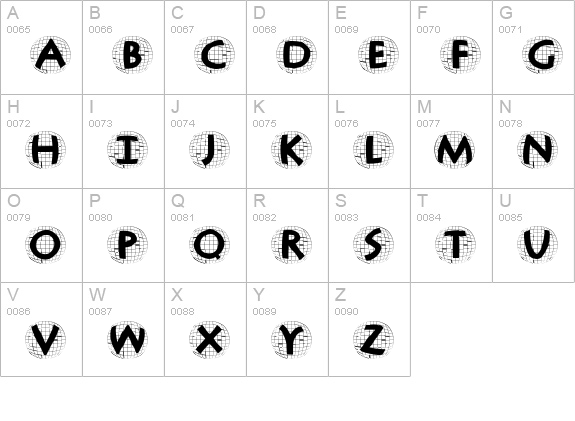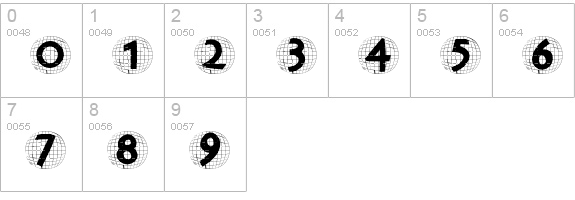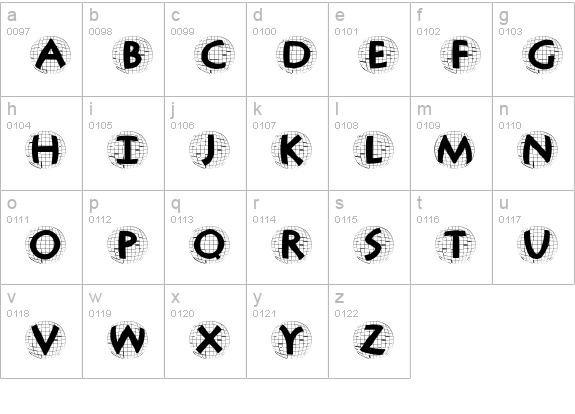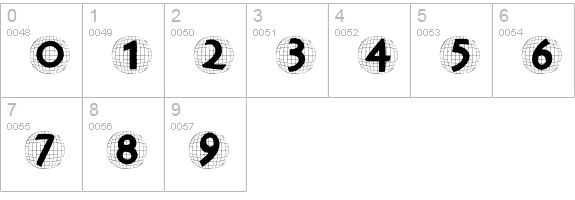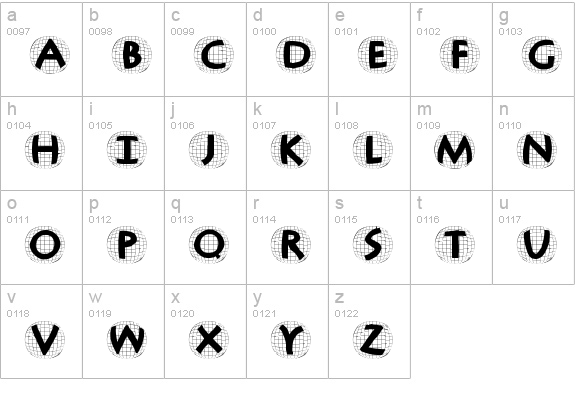
AntiquaInGridBalloons Font Details
AntiquaInGridBalloons is a whimsical and elegant font that exudes charm and sophistication. Its unique design features intricate details and playful curves, making it perfect for adding a touch of creativity to your projects. This font is inspired by vintage typography and brings a nostalgic feel to any design. AntiquaInGridBalloons is freely available to download at FontsMarket.com, allowing you to easily access this stunning font for your personal and commercial projects. Whether you're designing invitations, posters, or branding materials, AntiquaInGridBalloons will surely make a statement with its timeless appeal. Add a touch of elegance and creativity to your designs with this beautiful font today.